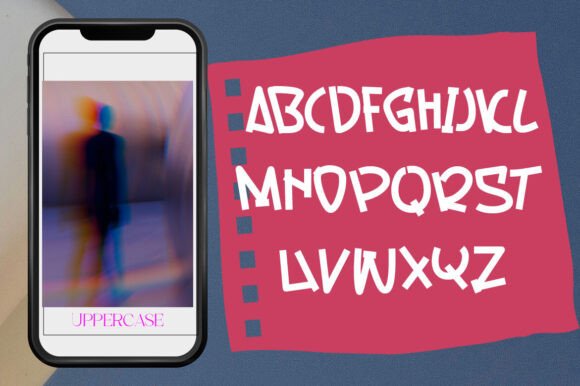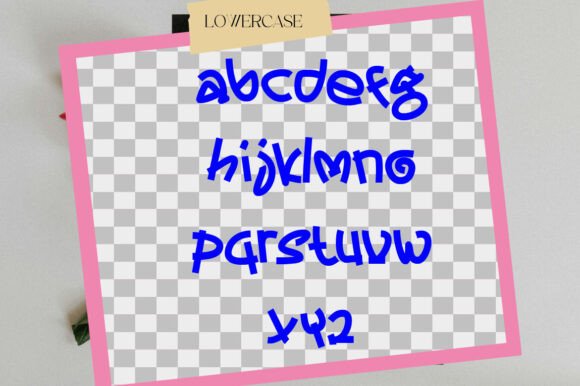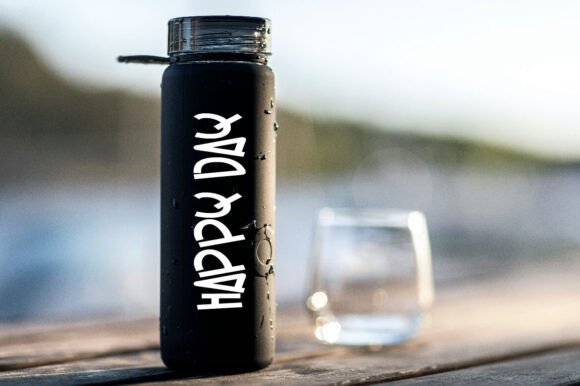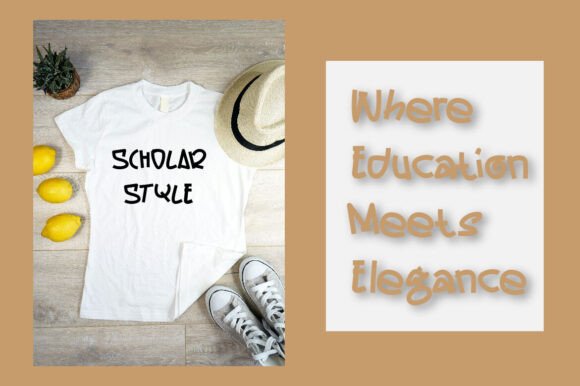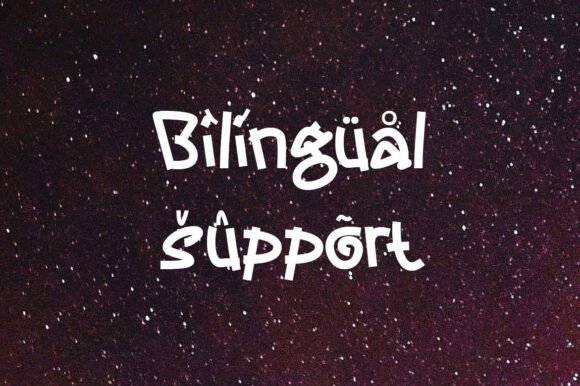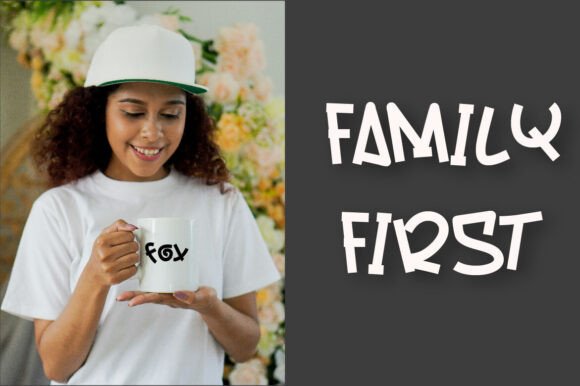
Introducing the Bengex Font: Elevate Your Designs with Modern Elegance
In the world of typography, a font can make all the difference in the success of a design project. Whether you’re a professional designer or a crafty DIY enthusiast, having the right font at your disposal can elevate your work from ordinary to extraordinary. This is where the Bengex Font comes into play – a modern, display font that is set to revolutionize the way you approach branding, headlines, and eye-catching designs.
What Makes Bengex Font Stand Out?
The Bengex Font is characterized by its unique characters, sleek lines, and a distinctly contemporary vibe. These features make it an ideal choice for anyone looking to add a touch of modern elegance to their projects. Whether you’re working on a logo, a brand identity, product packaging, or even a creative craft project like mugs, posters, t-shirts, or book covers, the Bengex Font is sure to make your designs stand out.
Technical Compatibility: Unlocking the Full Potential of Bengex Font
A Valuable Addition to Your Font Library
The Bengex Font isn’t just another addition to your font library; it’s a game-changer. Its versatility and modern appeal make it suitable for a wide range of applications, from professional design projects to personal crafting endeavors. With the Bengex Font, you can:
- Enhance your branding and logo designs with a contemporary twist.
- Create eye-catching headlines and posters that grab attention.
- Elevate product packaging with a modern, sophisticated look.
- Add a professional touch to your photography and editorial projects.
- Design stunning invitations, greeting cards, and more.
Whether you’re a seasoned designer or a hobbyist looking for that perfect font to bring your creative projects to life, the Bengex Font is an excellent choice. Designers will appreciate its flexibility and the way it can be tailored to fit various branding and design needs. Crafters, on the other hand, will love how it can add a professional and modern flair to their DIY projects, making them look more polished and appealing.
Exploring Creative Possibilities
The true power of the Bengex Font lies in its ability to inspire creativity. With its sleek lines and modern aesthetic, this font encourages designers and crafters to push the boundaries of their imagination. Here are a few ideas to get you started:
- Mugs and Apparel: Add a touch of elegance to mugs, t-shirts, and other apparel with the Bengex Font.
- Stationery: Create beautiful stationery, including invitations and greeting cards, that stand out with the Bengex Font.
- Product Packaging: Give your product packaging a modern makeover with this versatile font.
- Digital Designs: Use the Bengex Font in digital designs, such as social media graphics and website headers, to create a cohesive brand image.
The Bengex Font is more than just a typeface; it’s a design tool that can transform your projects and elevate your brand. Its modern design, versatility, and compatibility with a range of software make it an indispensable asset for designers and crafters alike. Whether you’re looking to create stunning branding, compelling headlines, or beautiful craft projects, the Bengex Font is your go-to solution. Embrace the power of modern typography and take your designs to the next level with the Bengex Font.